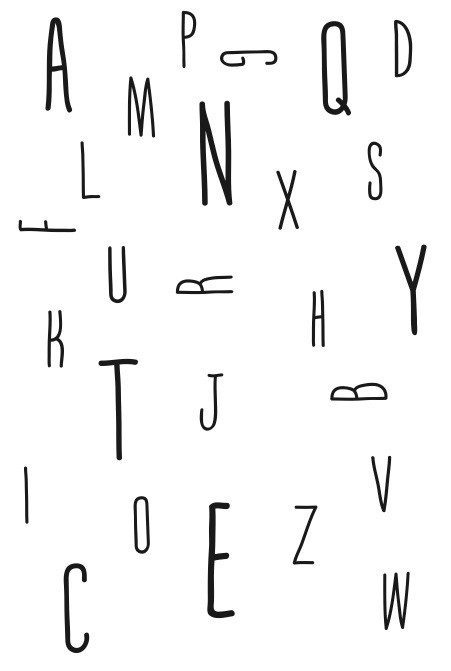
Squelch official font!
Inspiration behind this font was the simple, hand drawn, and crafty type using a marker that could be
used in zines or personal projects. There are many fonts that are similar but the only difference is that
it is drawn but us!